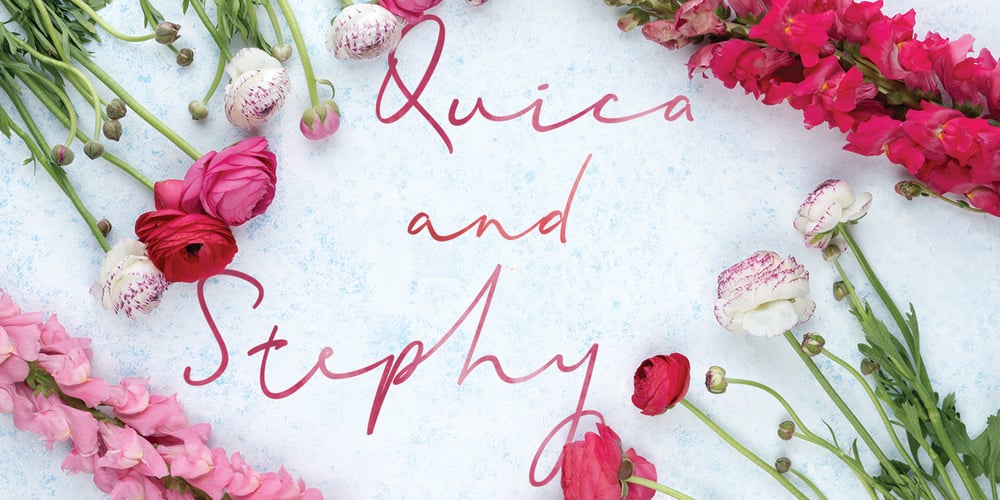
Quartila Font Family was designed by Rudi Suhairi and published by Tegaki. Quartila contains 1 styles and family package options. Hi all, I proudly present this “Quartila” script font . Quartila created with stylist and handwritten characters. This great font was PUA encoded . Quartila is a natural handwritten style that comes with Extended Latin Characters. Quartila works perfectly for logos, display, product branding, wedding invitation card, stationary, packaging, clothing, flyer, apparel, magazines, brochures, lable, posters, badges, etc. Quartila comes with 339 glyphs and 52 alternate characters contain with opentype features. Quartila also comes with 67 ligatures that allowing you to make stuff looks more exclusive and pro standard. You can access all those alternate characters by using OpenType savvy programs such as Adobe Illustrator, Adobe InDesign and CorelDraw X6-X7, Microsoft Word 2010 or later versions. There are additional ways to access alternates/swashes, using Character Map (Windows), Nexus Font (Windows), Font Book (Mac) or a software program such as PopChar (for Windows and Mac). For other programs that doesn’t support OpenType features or Glyphs Panel such as Photoshop, you can use Character Map in Windows to access the alternate characters. Files included: Quartila (otf)